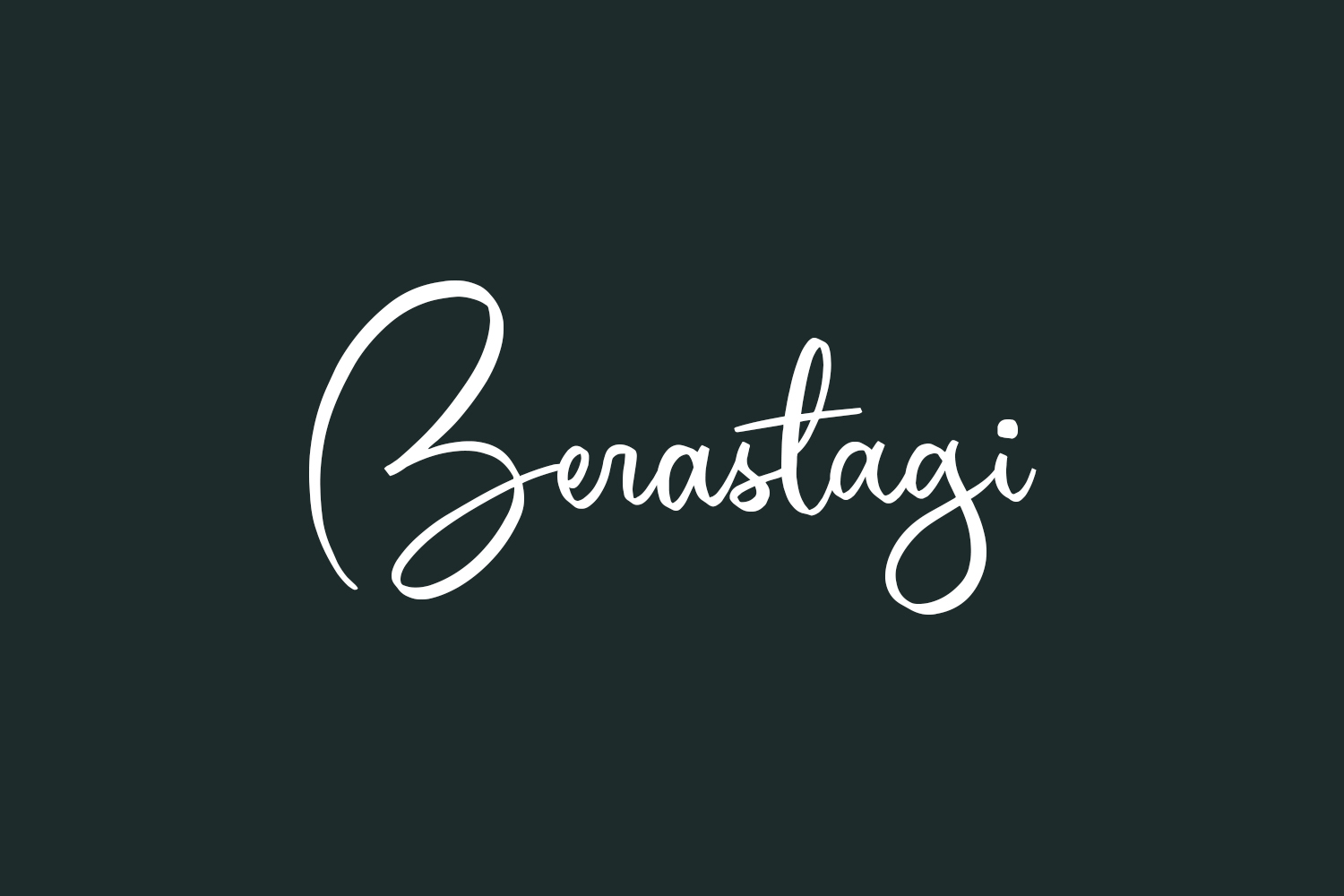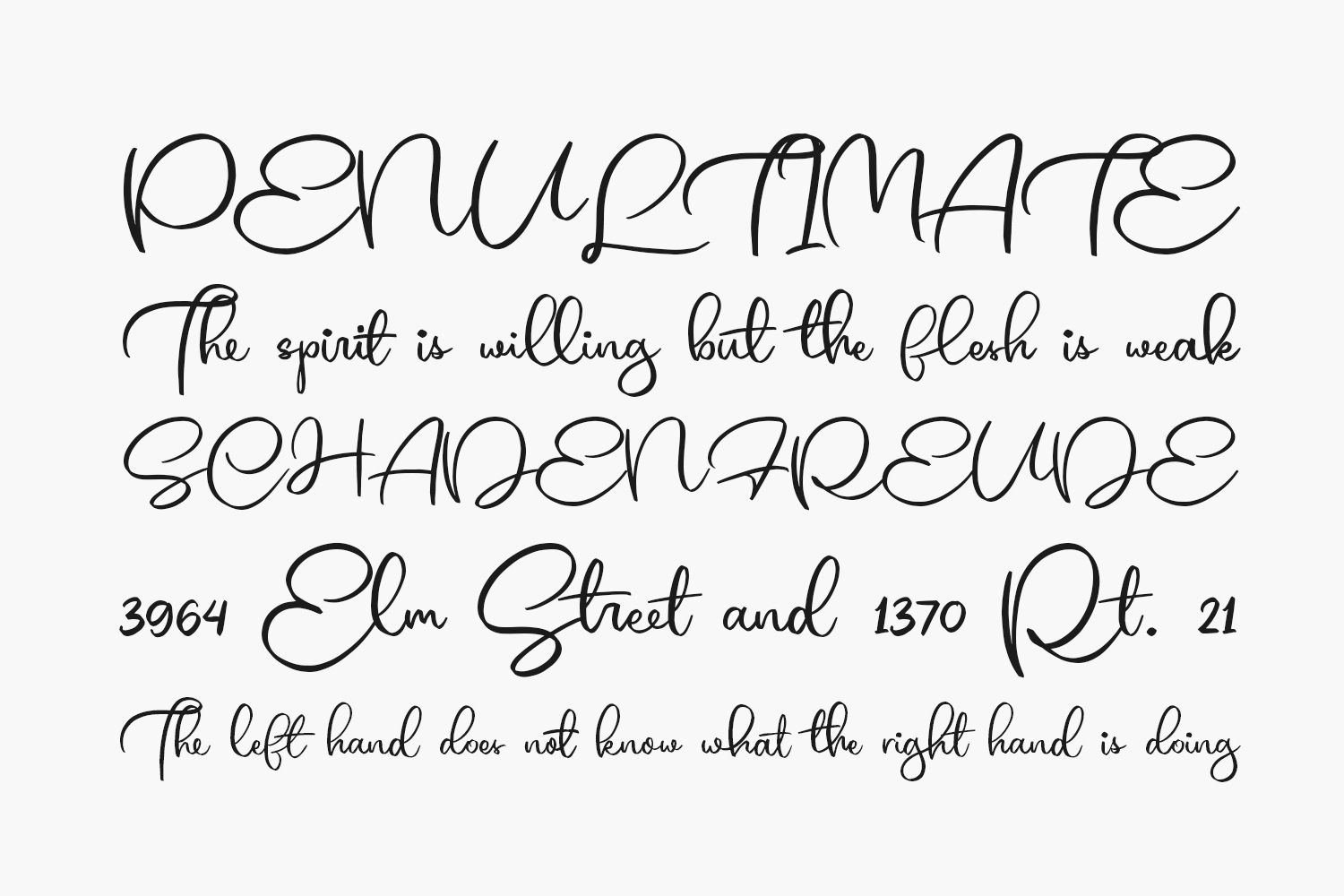
Berastagi Free Font is a delicate and relaxed handwritten font. Berastagi Free Font is free for personal use only. Please purchase the full version for commercial use.